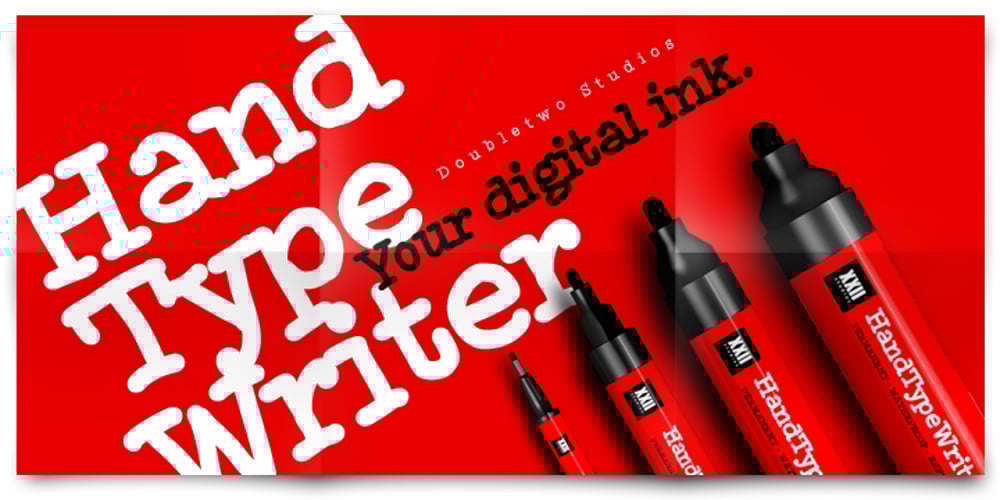
XXII HandTypeWriter Font Family was designed by Lecter Johnson and published by Doubletwo Studios. XXII HandTypeWriter contains 4 styles and family package options. If you liked the XXII Marker you may like this small family too. The HandTypeWriter is, like the name might suggest, a playful handwritten typewriter font. And as already known from XXII Marker is this cool letter-replacing “Contextual Alternates” feature replacing every second glyph by an alternate character. This gives the HandTypeWriter a more natural and handwritten look. Just check it out. XXII HandTypeWriter – Your digital ink. For more detailed info: Behance.net